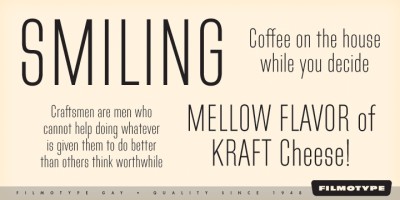
Driver Gothic Font
Driver Gothic Font is perfect for automotive industry branding, racing team logos, transportation company signage, automotive repair shop marketing, car dealership communications, motorsport event graphics, trucking business advertising, and high-performance vehicle campaigns.
What makes Driver Gothic Font exciting is its automotive precision that embodies the focused determination and mechanical excellence of professional driving with racing authenticity and transportation reliability. The font features streamlined letterforms with automotive proportions and driver-focused character that evoke speedometers, racing helmets, and the concentrated precision of professional driving and automotive performance. Its distinctive automotive styling and driving appeal communicate speed, precision, and mechanical expertise, making every message feel engineered for performance and touched by the professional excellence of automotive mastery and driving precision.
The Driver Gothic Font family includes regular weight with uppercase and lowercase letters, numerals, punctuation marks, and comprehensive automotive symbols. Premium versions often feature multiple weights and racing alternates that enhance the automotive, performance aesthetic perfect for transportation and motorsport applications.
The performance character of Driver Gothic Font makes it particularly valuable for automotive manufacturers, racing organizations, and transportation service providers. Its excellent readability ensures automotive information and driving communications remain clear while maintaining the distinctive racing aesthetic that appeals to drivers seeking authentic automotive experiences and performance excellence.
Automotive industry marketers appreciate how Driver Gothic Font effortlessly conveys driving authenticity and automotive precision. The font's streamlined proportions and racing details create powerful brand materials that establish connections with audiences who value automotive performance, driving skill, and the mechanical excellence of professional automotive operation and racing precision.
The versatile performance of this typeface extends to automotive education, driving instruction, and transportation logistics where automotive authenticity enhances driving credibility and performance appeal. Driver Gothic Font Free Download provides creative professionals with an essential tool for developing memorable, performance-driven designs that resonate with audiences who embrace automotive excellence, driving precision, and the streamlined power of professional automotive performance in their transportation and driving experiences.